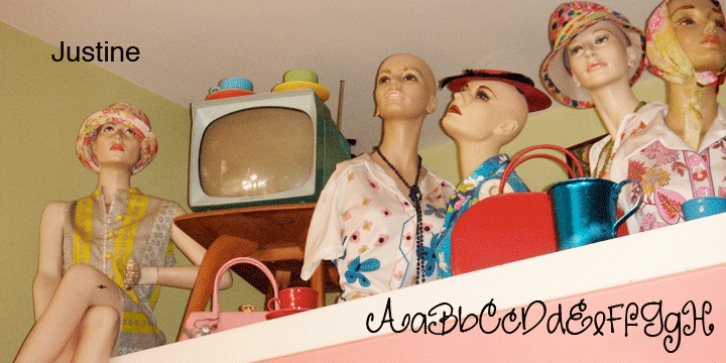
Justine is a hand drawn font published by Outside the Line.
Justine, while a playful, swirly, girly font is a complete font with the full character set.
It was inspired by the handwriting of by Justine Childs.